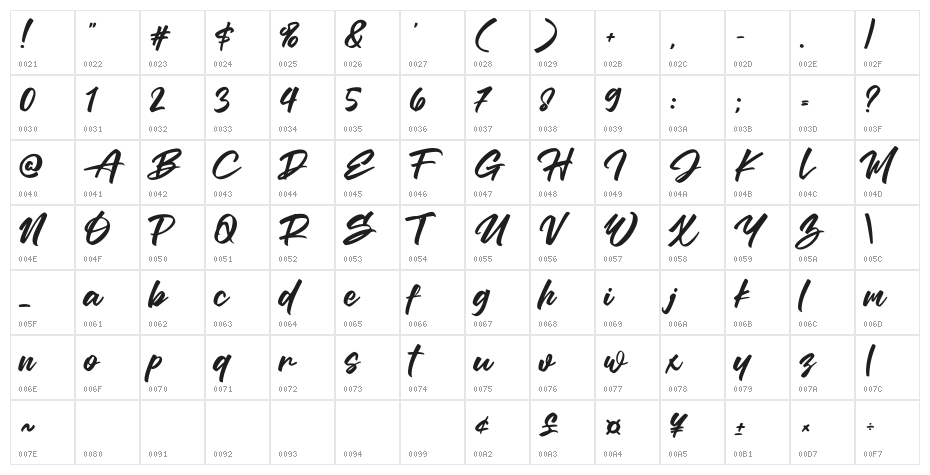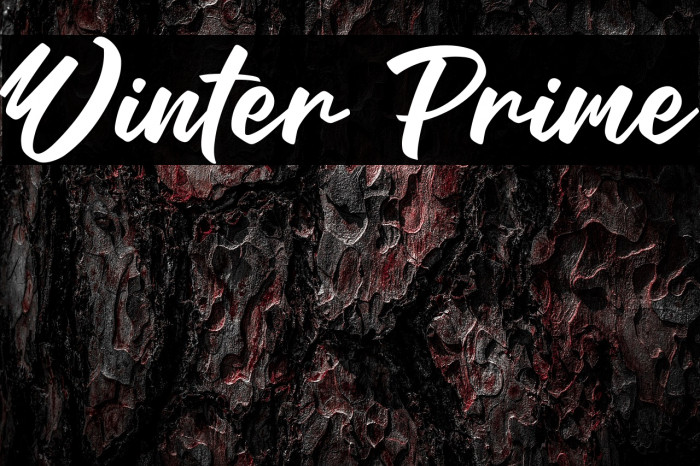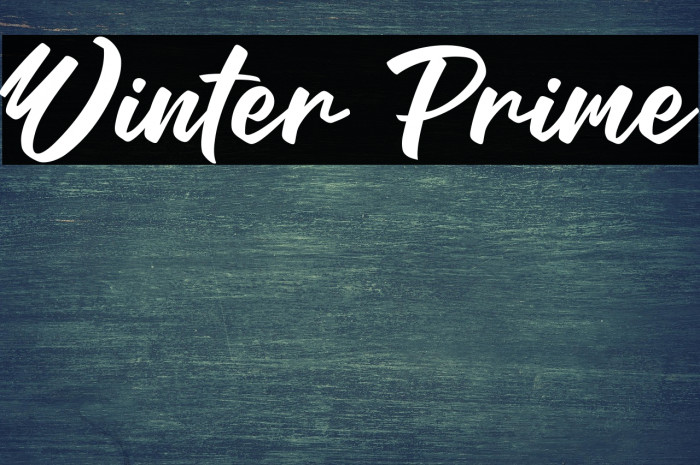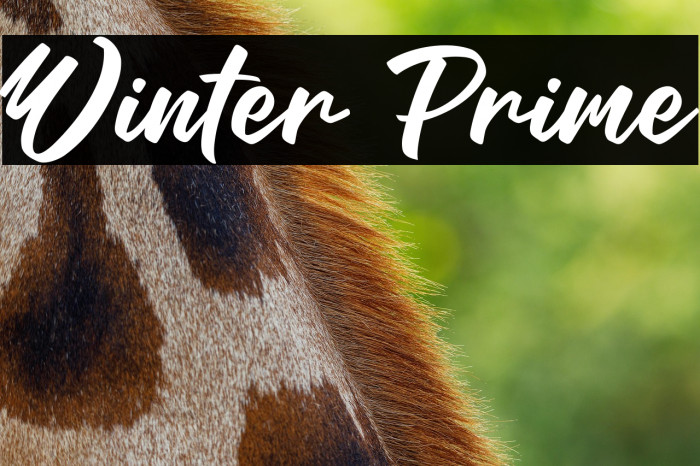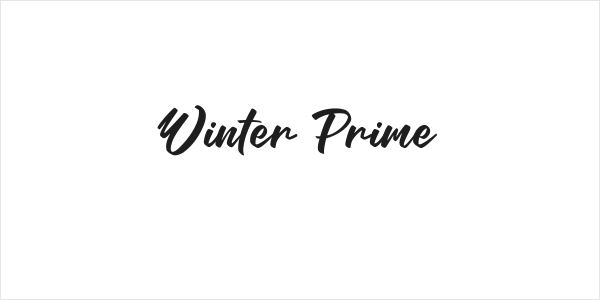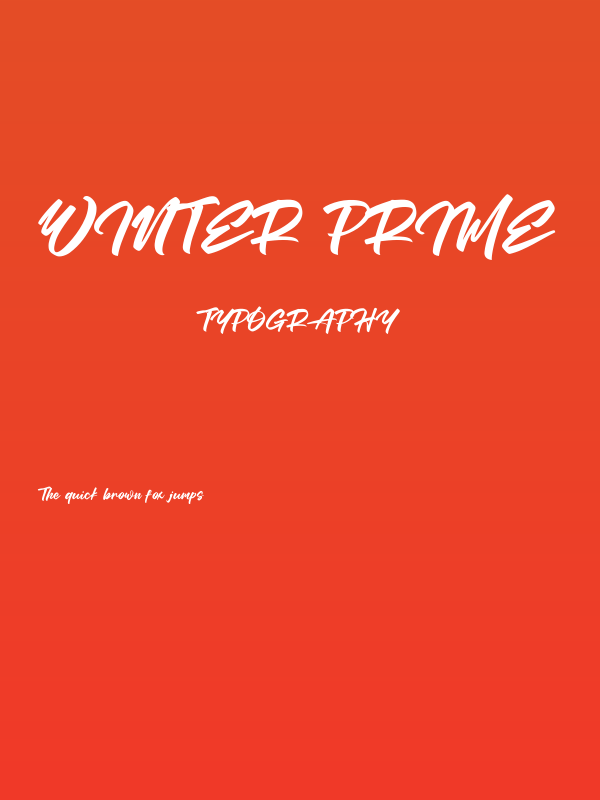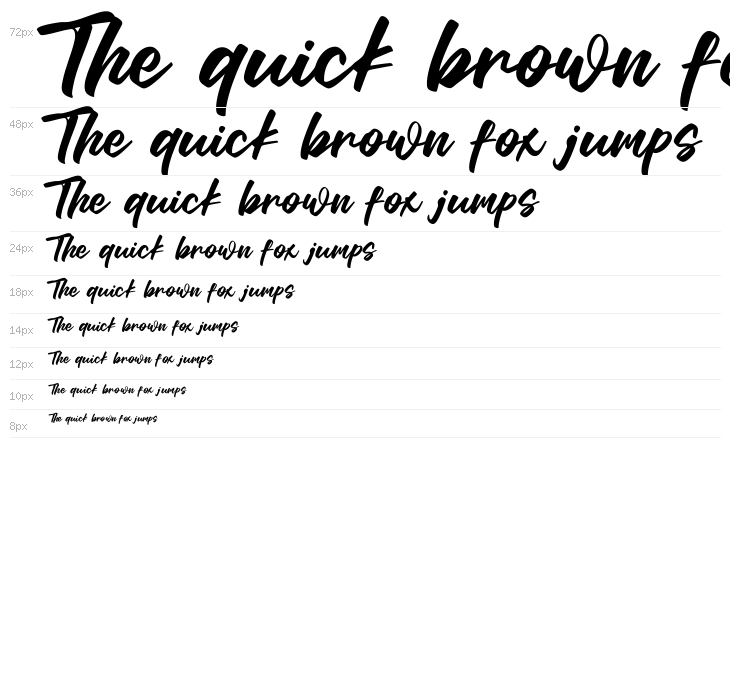
Winter Prime Font
Winter Prime Description
This font features a bold and dynamic script style, characterized by its fluid and connected letterforms. The strokes are thick and expressive, giving a sense of movement and energy. The uppercase letters are slightly more formal, while the lowercase letters exhibit a casual, handwritten feel. Numbers and special characters maintain the same lively style, ensuring consistency across all elements. This font is ideal for projects that require a personal touch or a sense of creativity and flair.